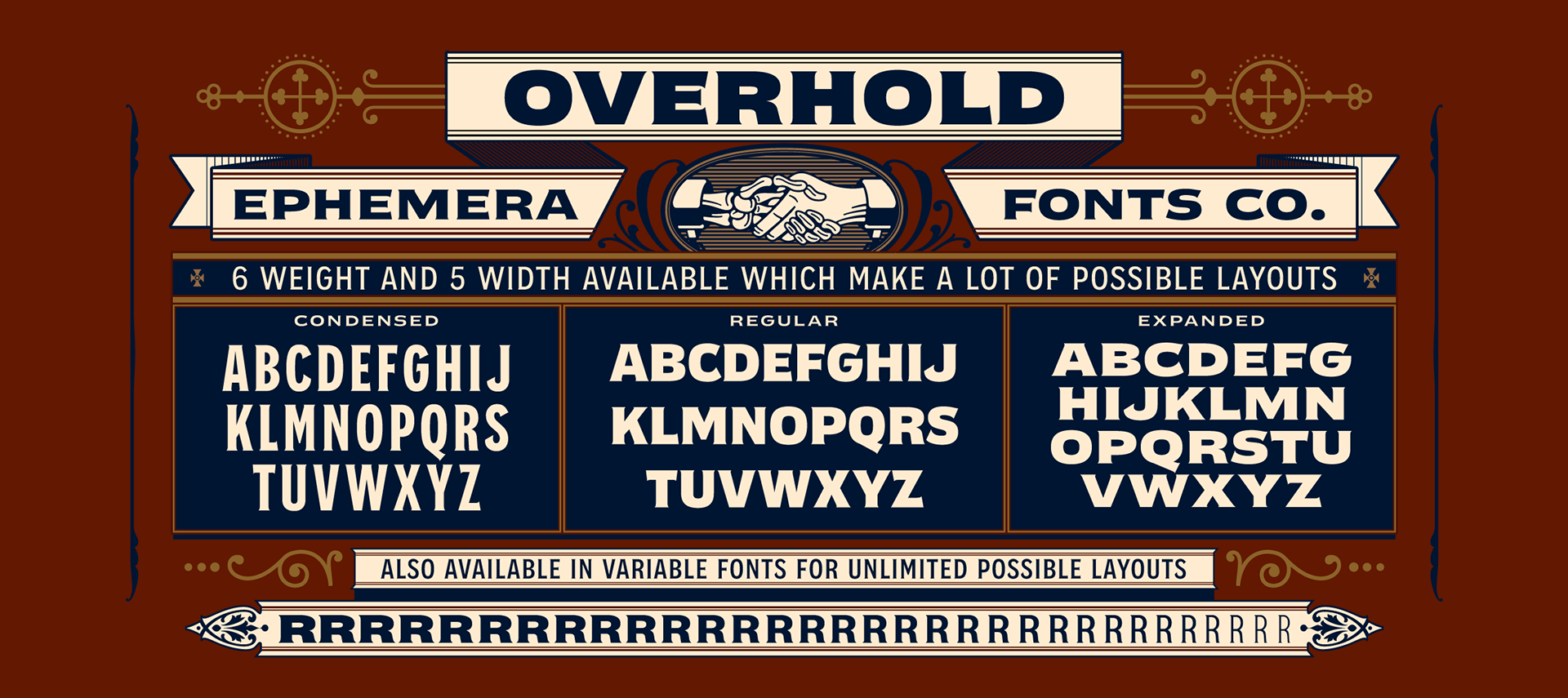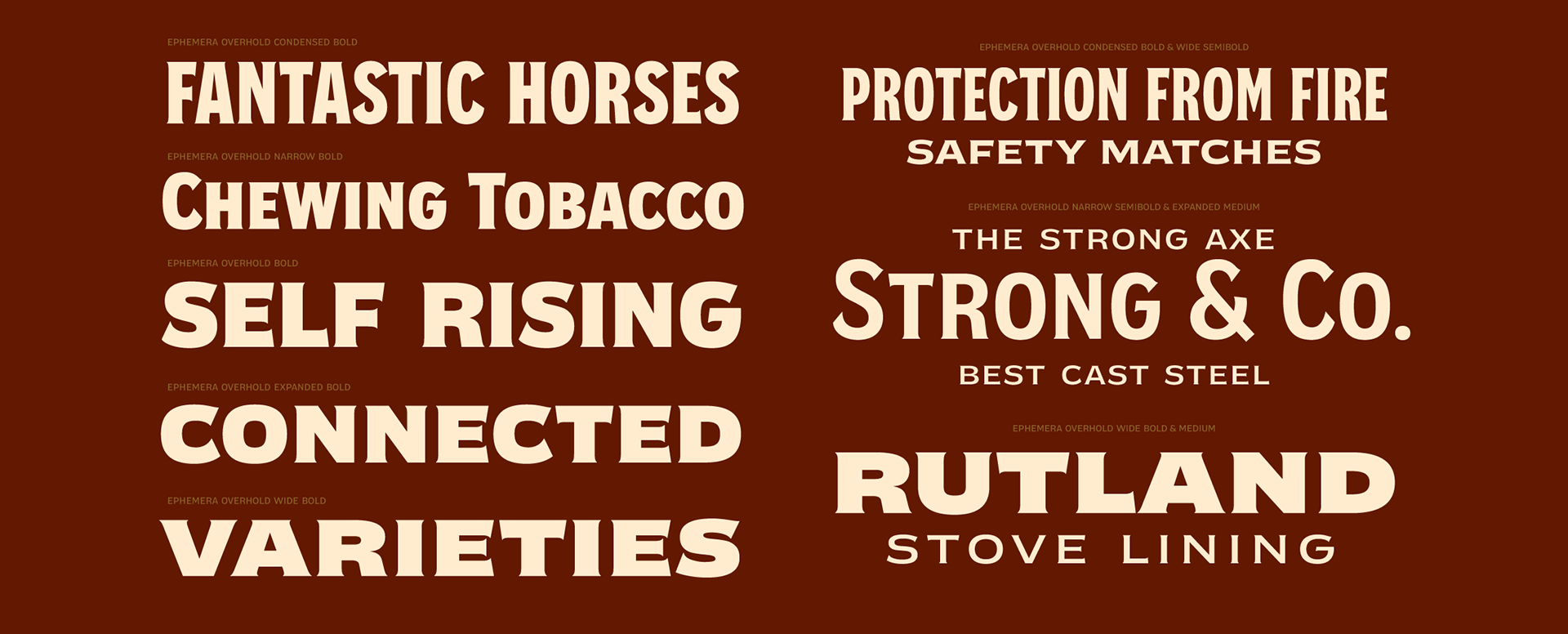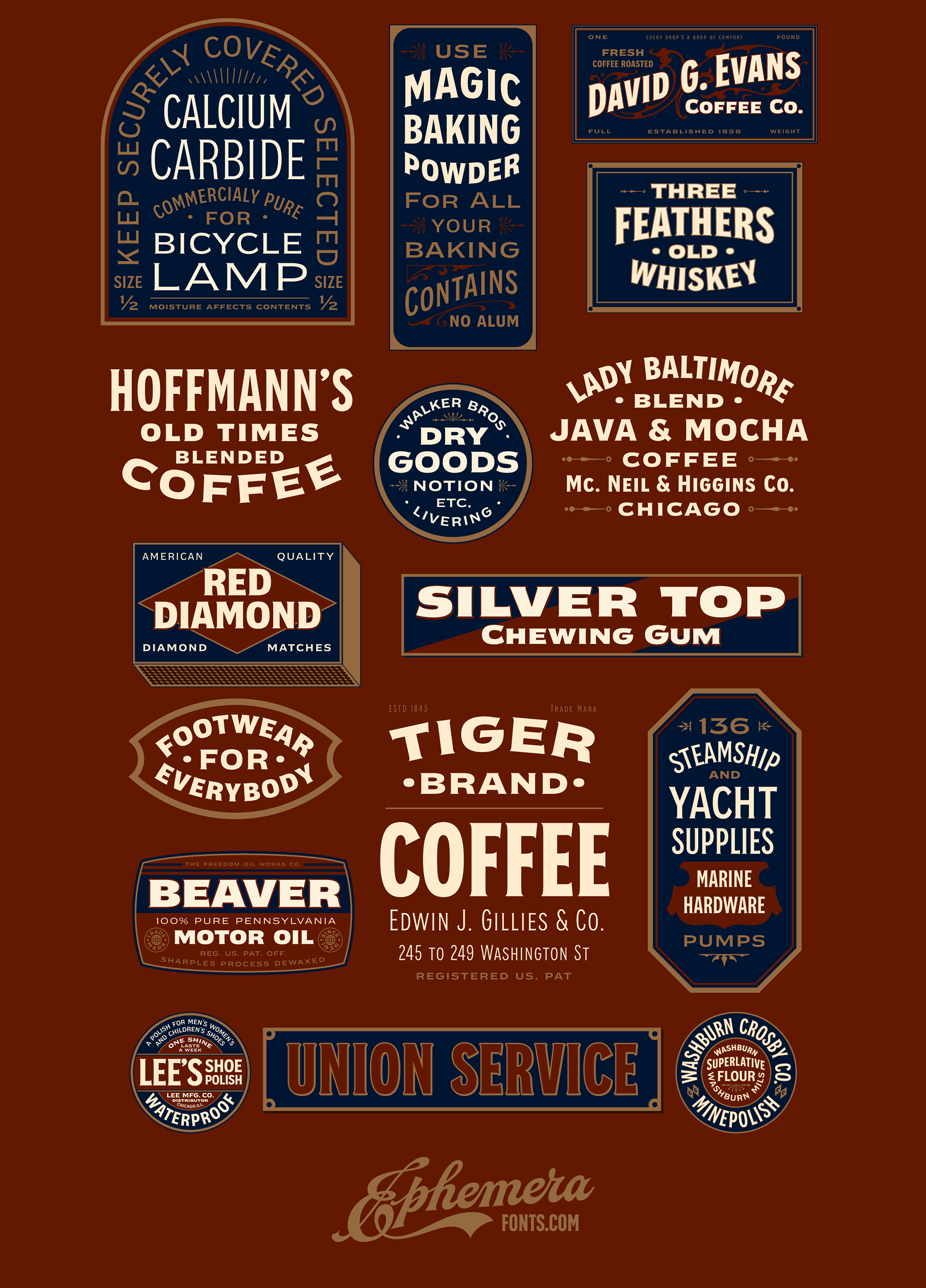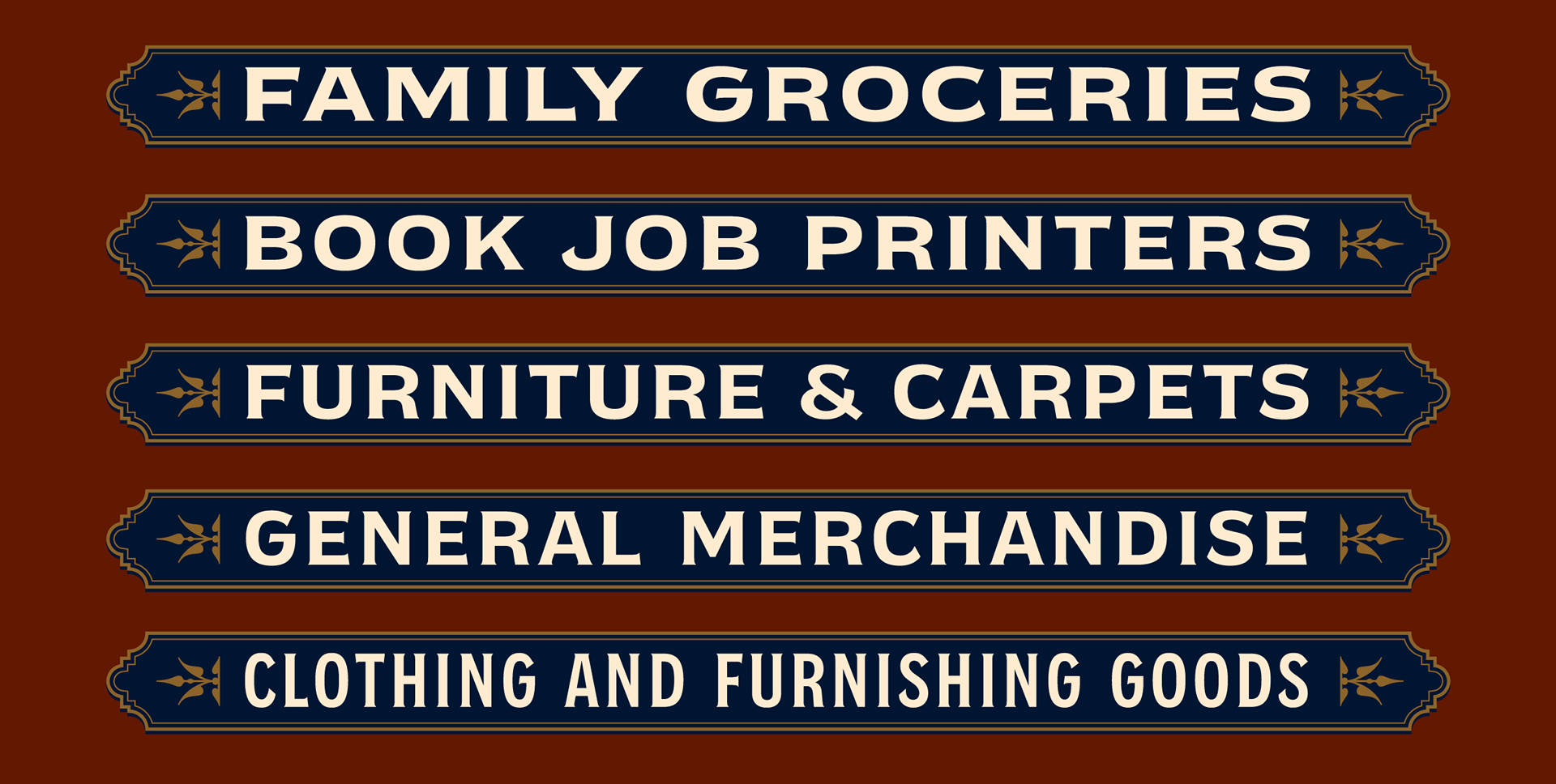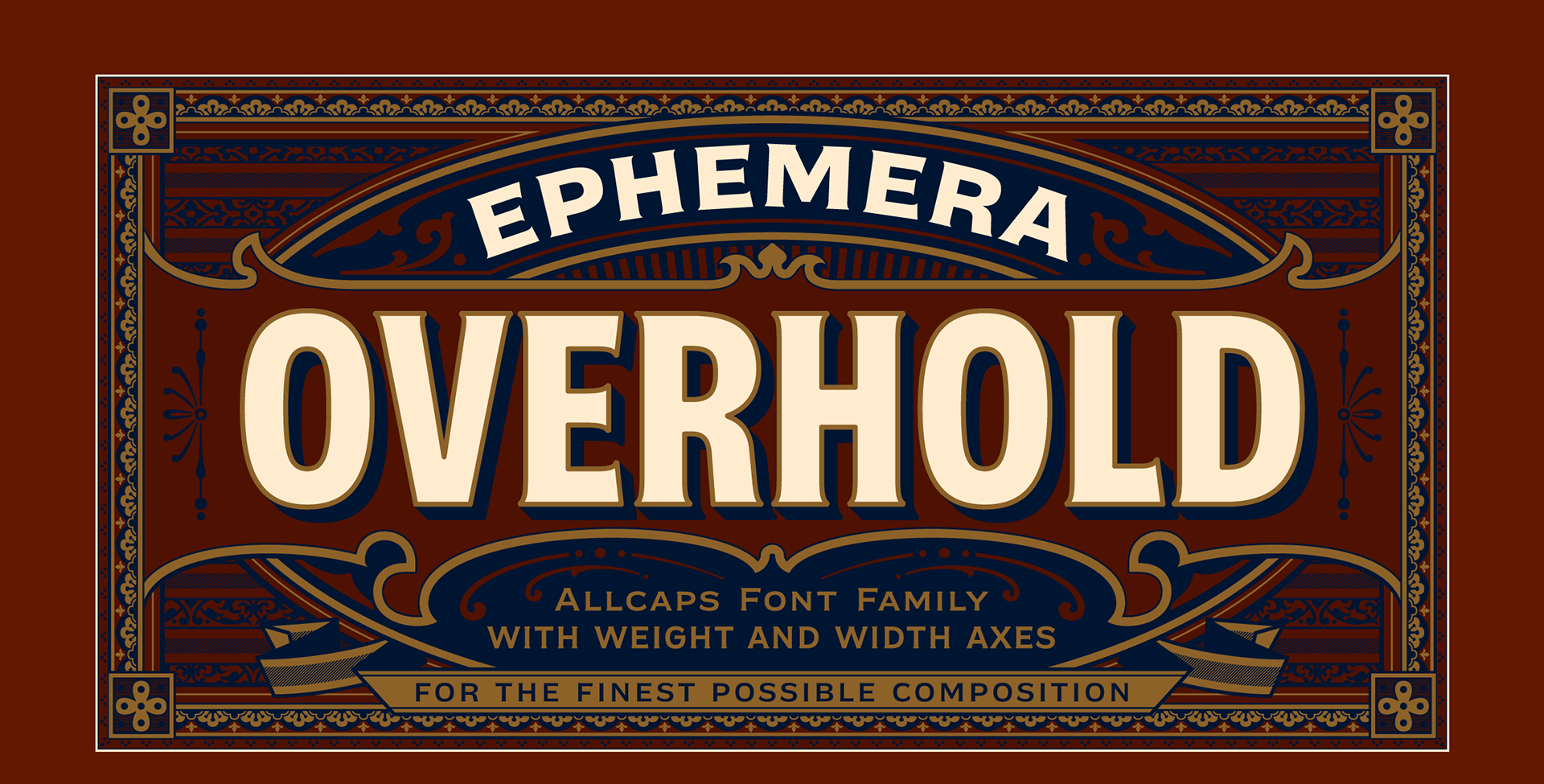
Ephemera Overhold, a family of 25 fonts, blocks all-caps with spur serif accent, created as a font pair with other font collections. available with height and width axes which make a lot of possible layouts. and also available in variable font format for unlimited possible layouts.
Ephemera Overhold is a great typeface for typography logo composition, branding, packaging, signage, print, headline, pair with your illustration, or pair with other ephemera fonts collections, etc.